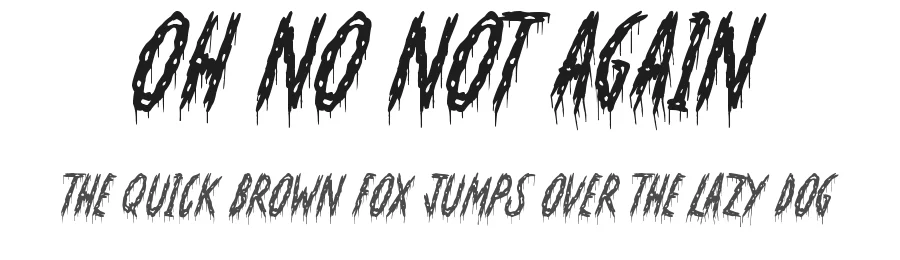
About Evil Pop Font
Introducing Evil Pop, the ultimate monospace font for dystopian metal bands! With a trashy and stylized design, Evil Pop perfectly captures the dark and twisted vibe of death metal. It's great for display, logotypes, titles, headlines, album covers, and much more. Give your band's brand a boost with Evil Pop's unique and edgy look. The future is bleak, but with Evil Pop, your metal band will stand out as a beacon of darkness and despair.
Evil Pop Specifications
| Font Family | Evil Pop |
| Full Name | Evil Pop Italic |
| Designer | Mohamad Farhan Ramadhan |
Evil Pop Font
by Mofr24